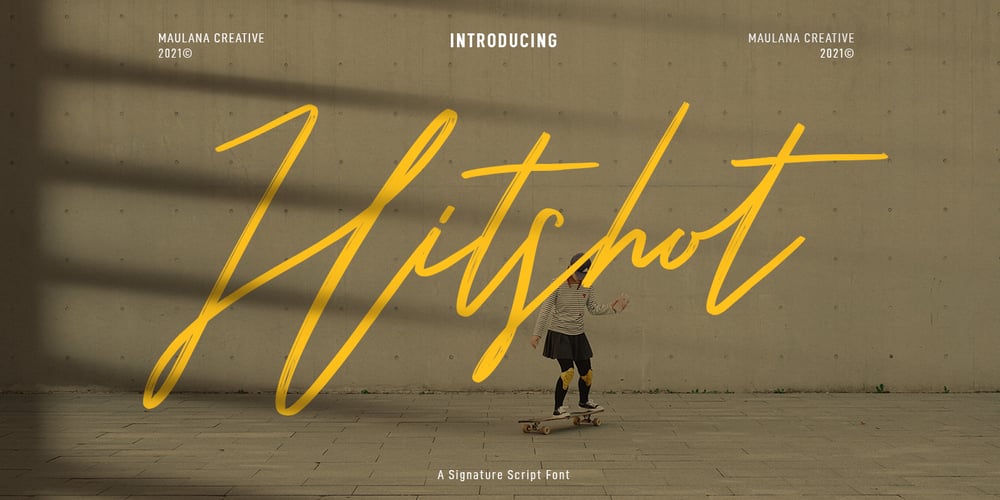
Hitshot Signature Font Family was designed by Gilang Maulana and published by Maulana Creative. Hitshot Signature contains 2 styles and family package options. Hitshot is an expressive signature brush script font. With regular brush stroke, slanted and fun character with some of ligatures and lowercase alternates. To give you an extra creative work. Hitshot font support multilingual more than 100+ language. This font is good for logo design, Social media, Movie Titles, Books Titles, a short text even a long text letter and good for your secondary text font with sans or serif. Make a stunning work with Hitshot font. Cheers, MaulanaCreative